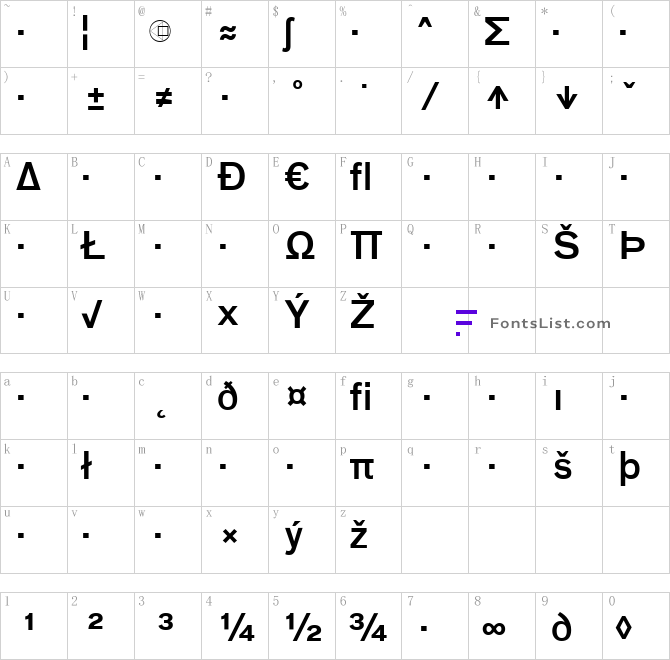
- Font Name:BauTF-MediumExpert
- Subfamily:ChristianSchwartzpublishedbyFontShopInternationalfortheFontFontLibrary: BauTF-MediumExpert: 2002
- Full Name:BauTF-MediumExpert
BauTF-MediumExpert.ttf is a very beautiful artistic font, BauTF-MediumExpert.ttf is widely used in the design and printing of various books and pictures,BauTF-MediumExpert.ttf has a strong visual impact,BauTF-MediumExpert.ttf is a commonly used font in newspapers, magazines and books, and is used in posters, e-commerce Poster design, store design, logo design, font design and other fields.BauTF-MediumExpert.